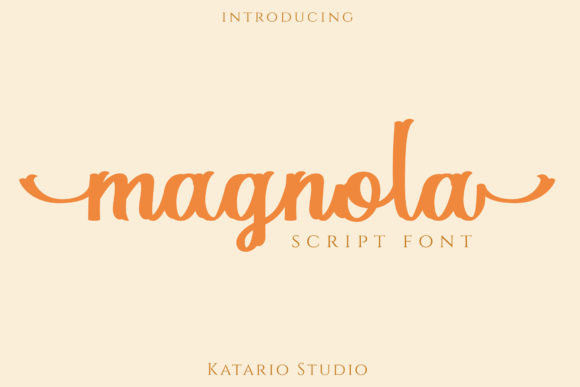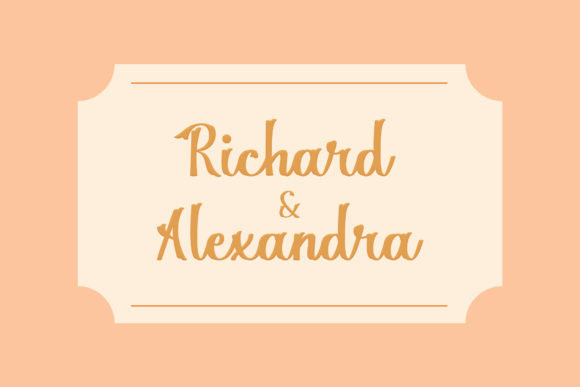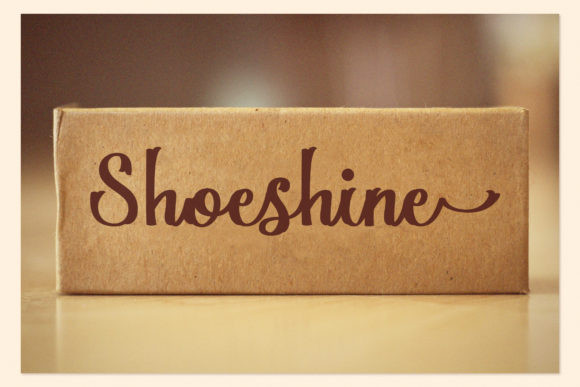
Magnola Font
Magnola is a beautiful script font. It has `cute swashes and ligatures that will look amazing in your designs. It’s perfect for packaging, branding, social media posts, logos, posters and any craft in need of an elegant twist! This font is PUA encoded which means you can access all of the cute glyphs and swashes with ease!